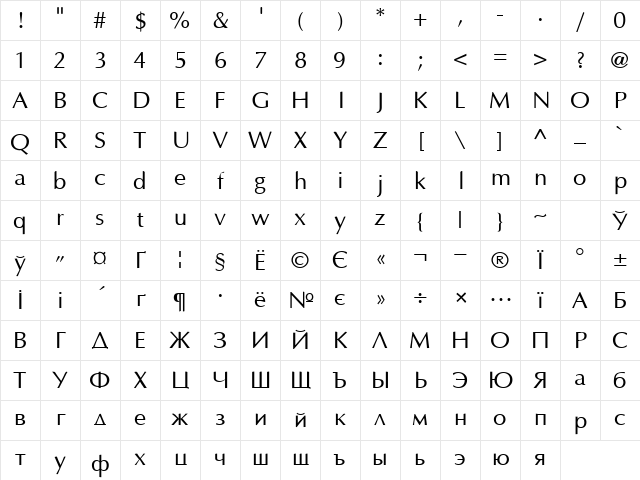
Optima Cyr Regular
Design Context for Optima Cyr
Optima Cyr is a composed and adaptable typeface that performs quietly and consistently across a wide range of design contexts.